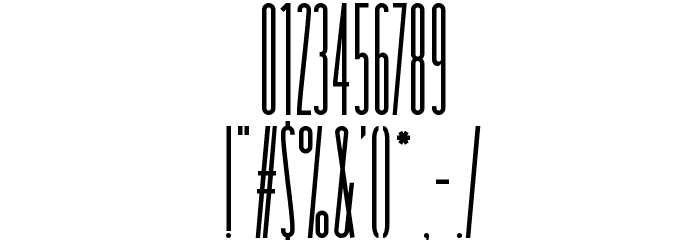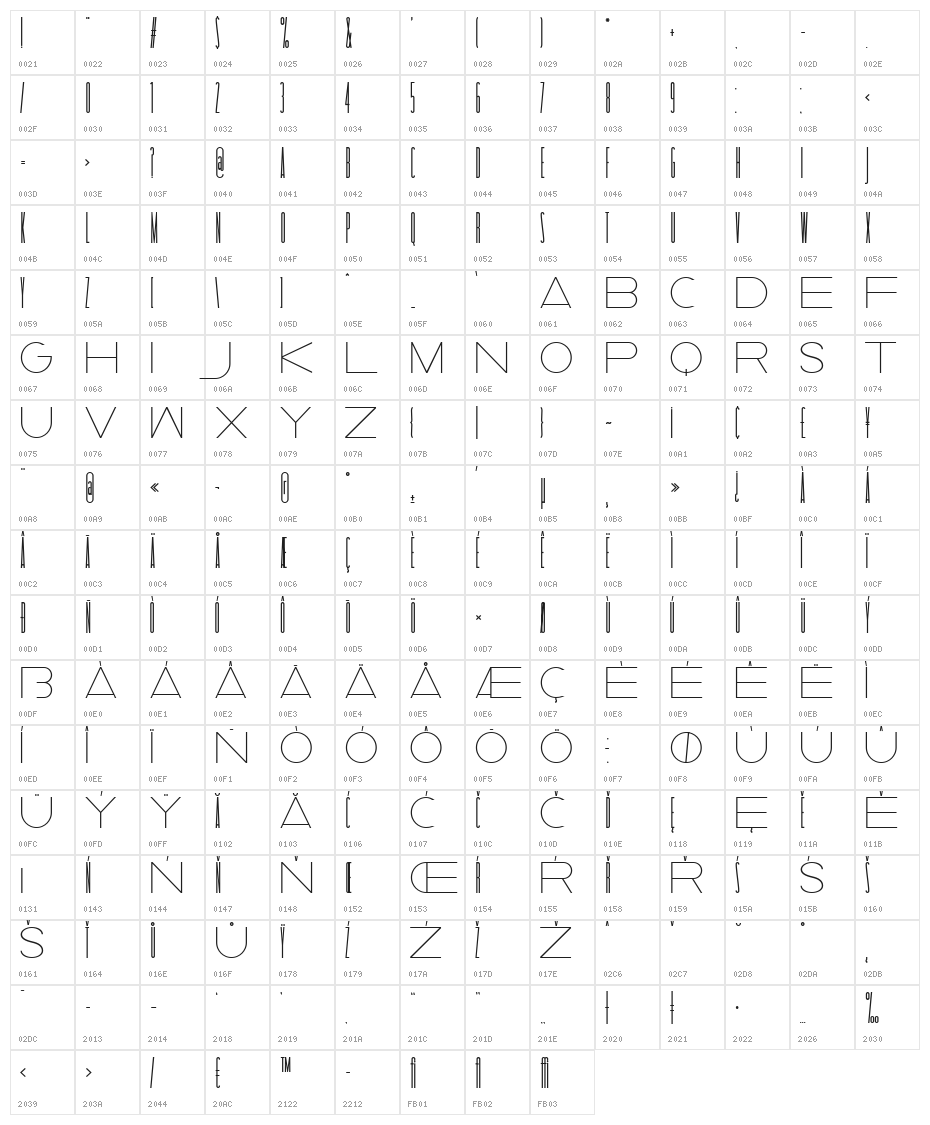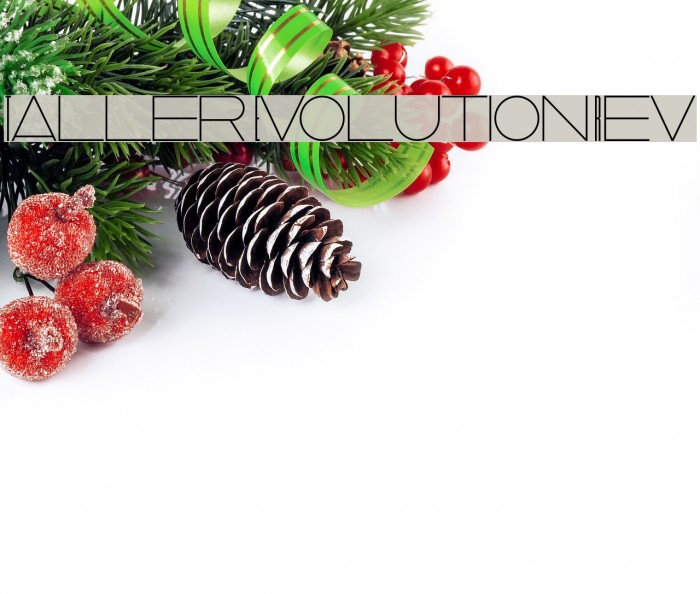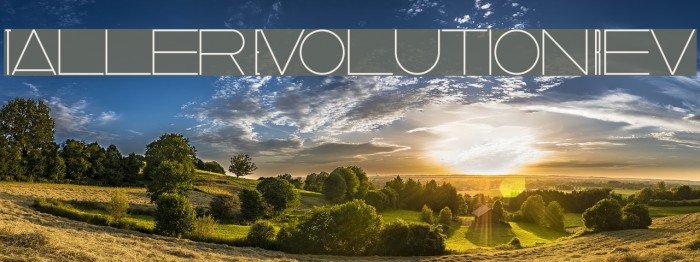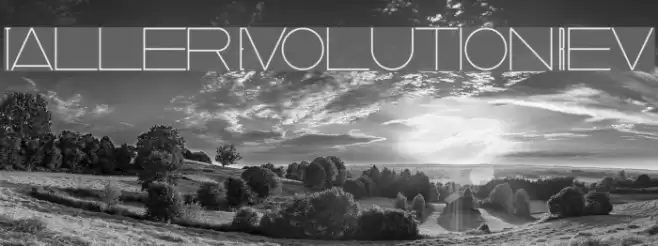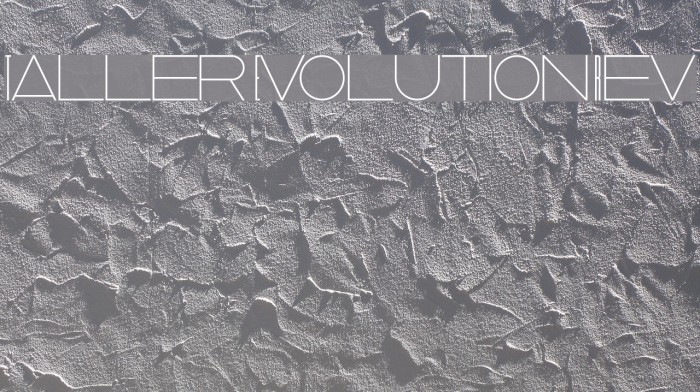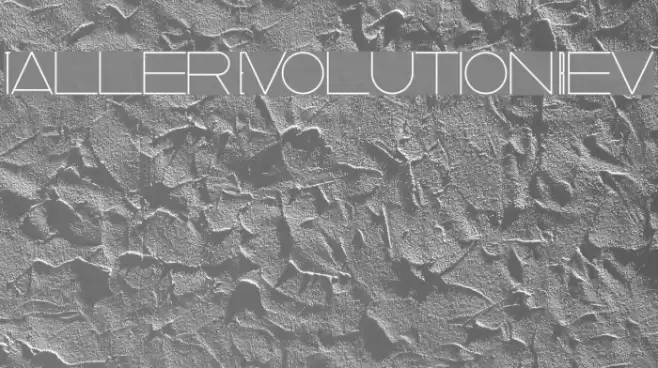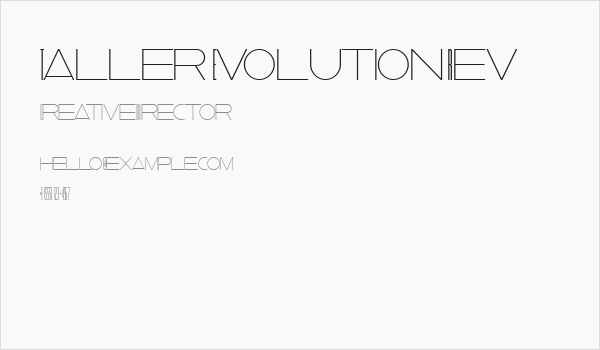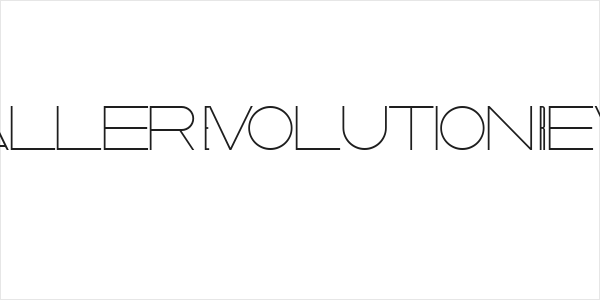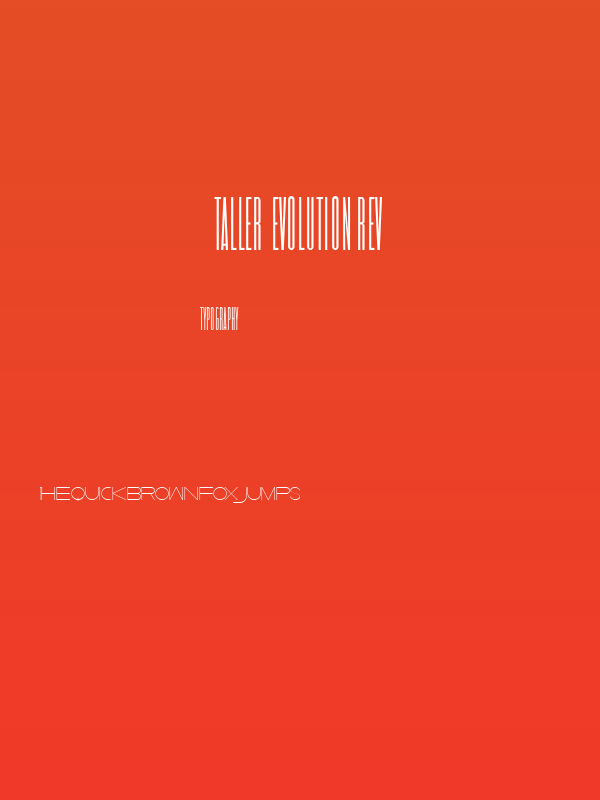
Taller Evolution Rev Font
Taller Evolution Rev Description
This font features a strikingly modern and geometric design, characterized by its tall and narrow letterforms. The uppercase letters are elongated, giving a sense of height and elegance, while maintaining a clean and minimalistic aesthetic. The lowercase letters follow a similar style, with consistent stroke widths that enhance readability. The numerals are also tall and slender, complementing the overall design. Special characters are uniquely styled, adding a touch of sophistication. This font's distinct appearance makes it suitable for contemporary and avant-garde projects.